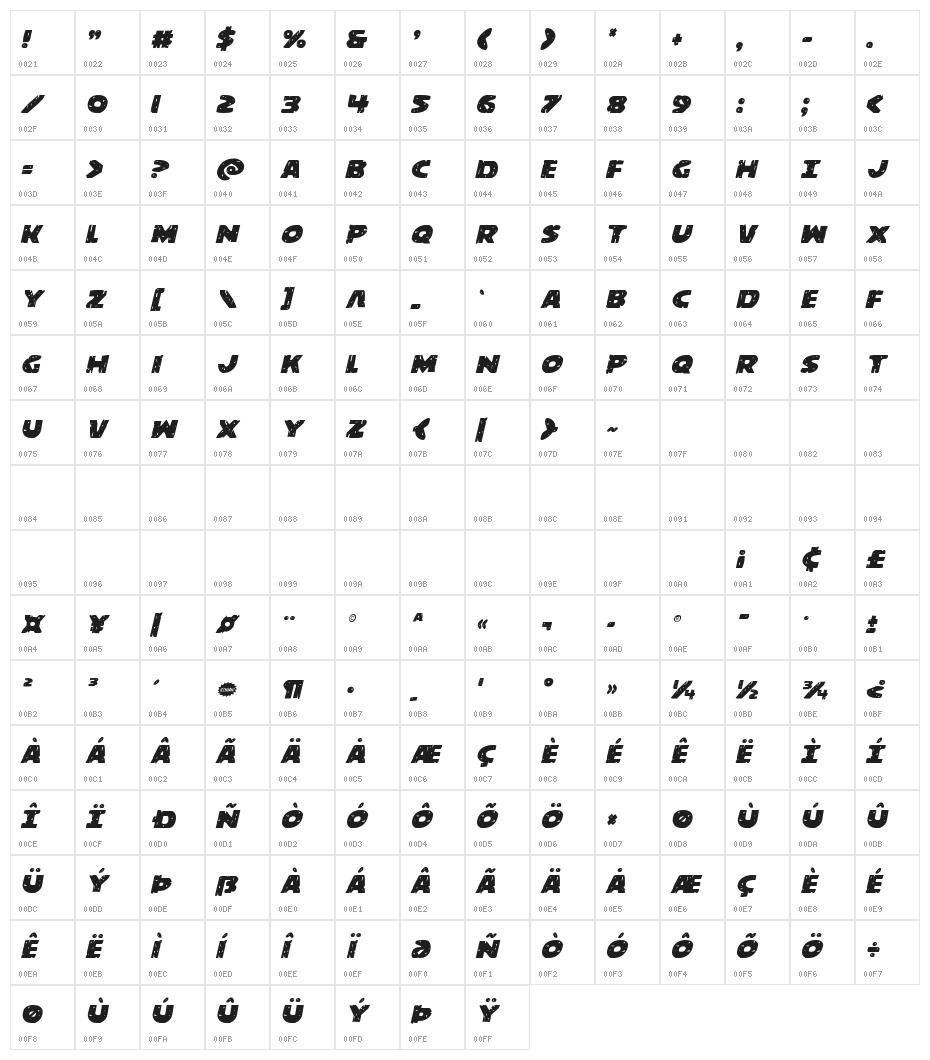
Behemuth Italic Font
Behemuth Italic Description
This font features a bold and dynamic style with a distinct italic slant, giving it a sense of movement and energy. The characters are robust and heavily weighted, with a playful, decorative touch that includes unique cut-out patterns within each letter. The font's boldness is complemented by its medium contrast, where the stroke thickness varies slightly, adding to its visual interest. The spacing between characters is relatively tight, enhancing its compact and impactful appearance. This font is ideal for making a strong visual statement, suitable for creative and eye-catching designs.
| Proposed Projects | Perfect for poster designs, branding projects, album covers, and any creative work that requires a bold and dynamic typeface. |